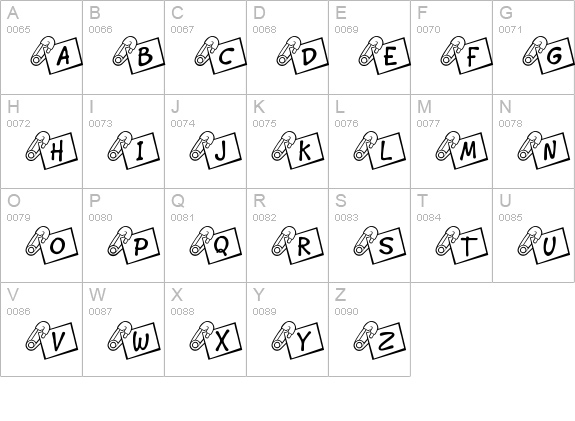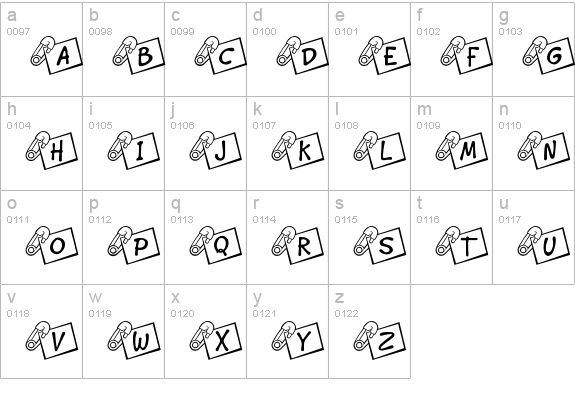
JLR Diaper Pin Font Details
Introducing JLR Diaper Pin font, a delightful and playful typeface that will add a touch of whimsy to any design project. This font is perfect for creating eye-catching headlines, charming logos, and adorable invitations. JLR Diaper Pin font features a unique combination of rounded edges and delicate strokes, giving it a distinct and endearing appearance. Its charm lies in its simplicity, making it versatile and suitable for various design styles. This font is not only visually appealing but also incredibly easy to use. With its extensive character set, including uppercase and lowercase letters, numbers, and punctuation marks, you have all the tools you need to bring your creative visions to life. And the best part? JLR Diaper Pin font is absolutely free! That's right, you can download this charming typeface at no cost from FontsMarket.com. Whether you're a professional designer or a DIY enthusiast, this free font will be a valuable addition to your collection. So why wait? Let your imagination run wild with JLR Diaper Pin font. Download it now and start creating captivating designs that will leave a lasting impression.